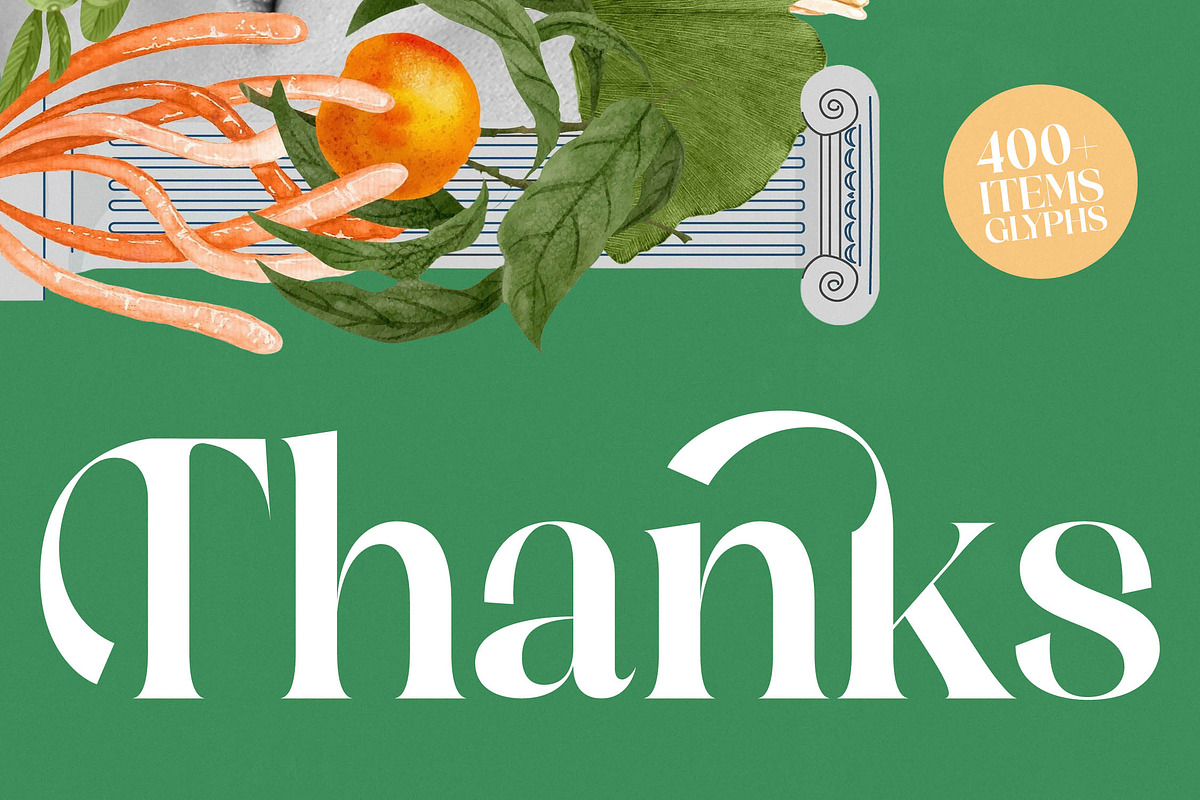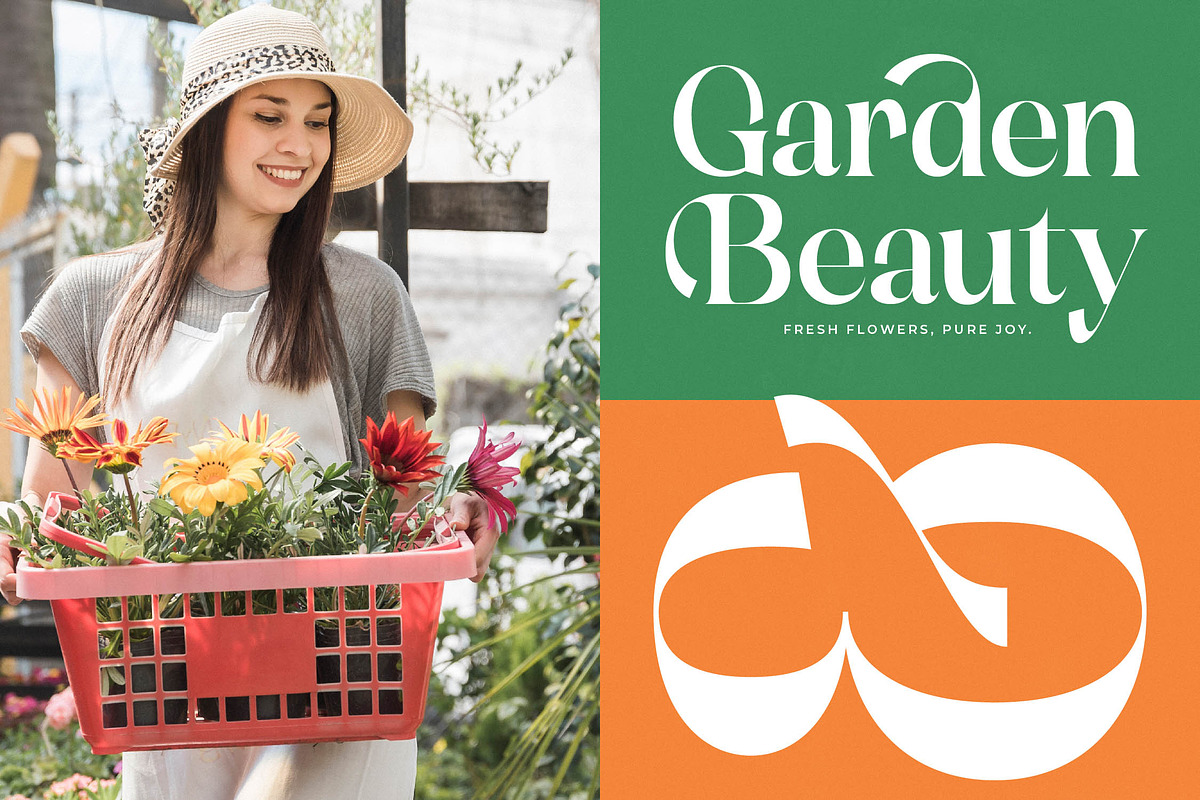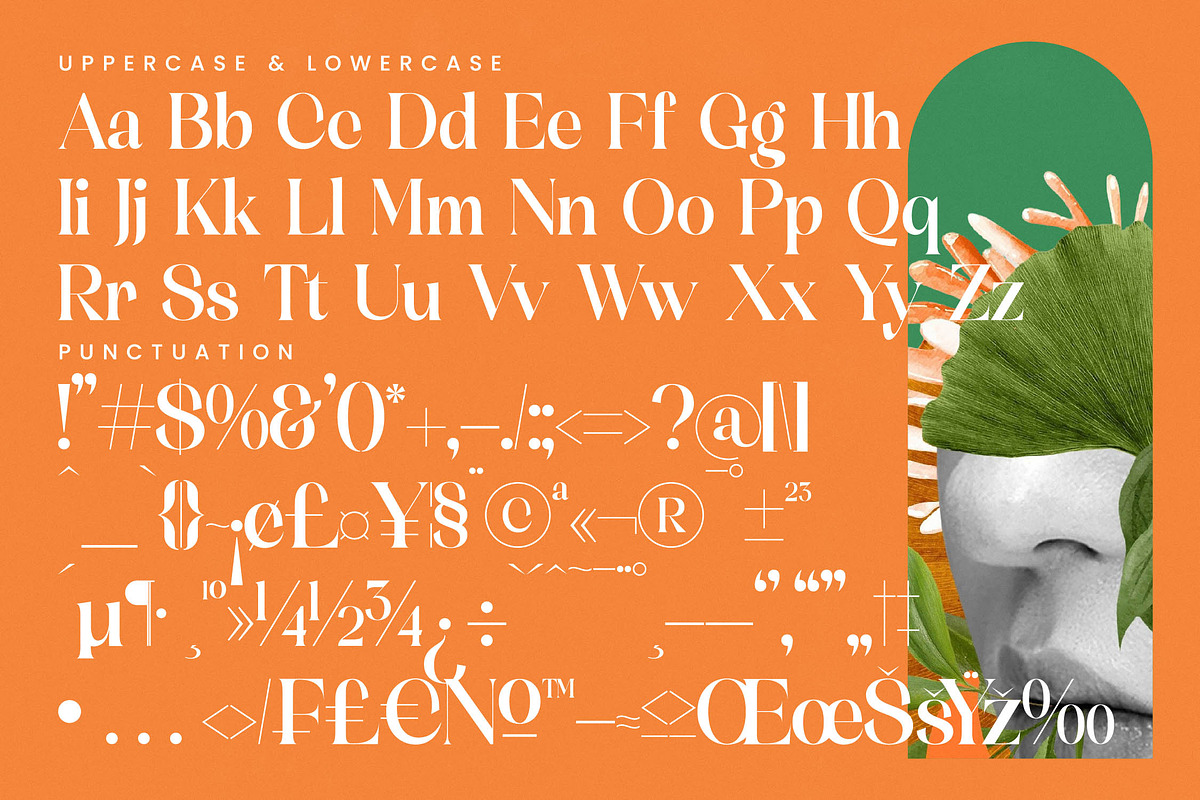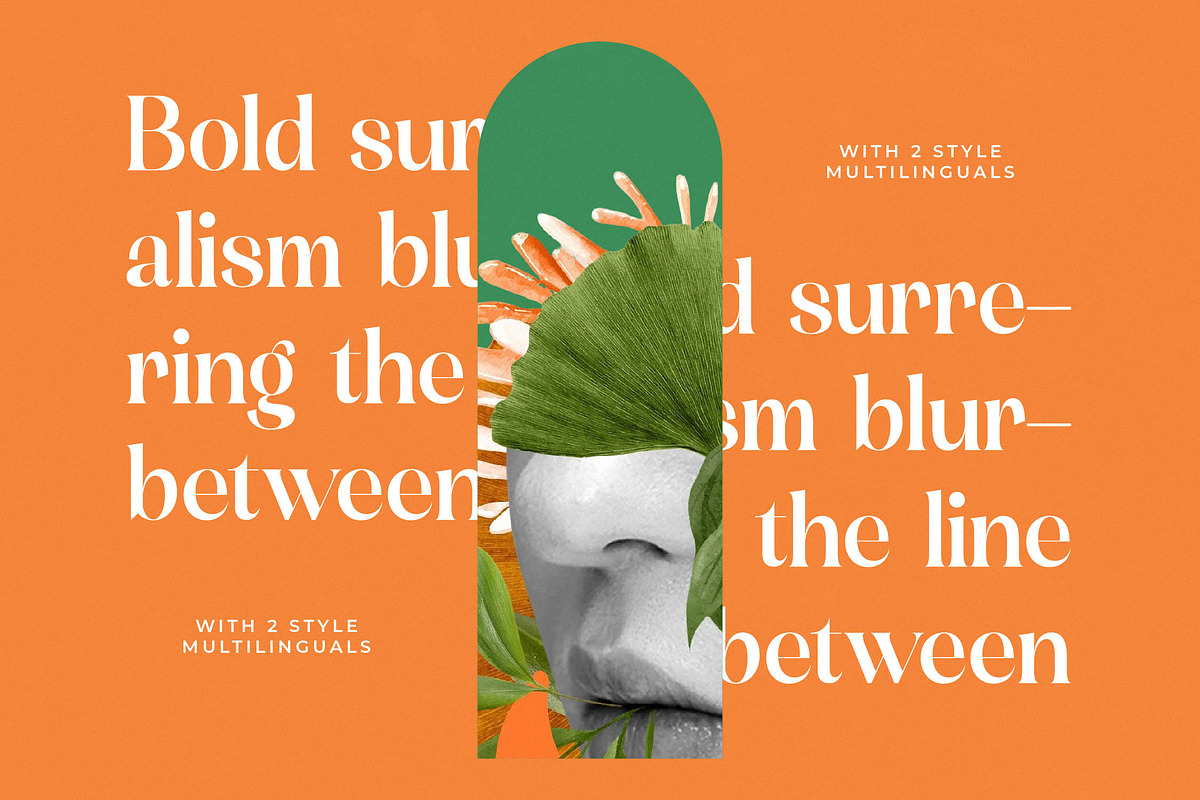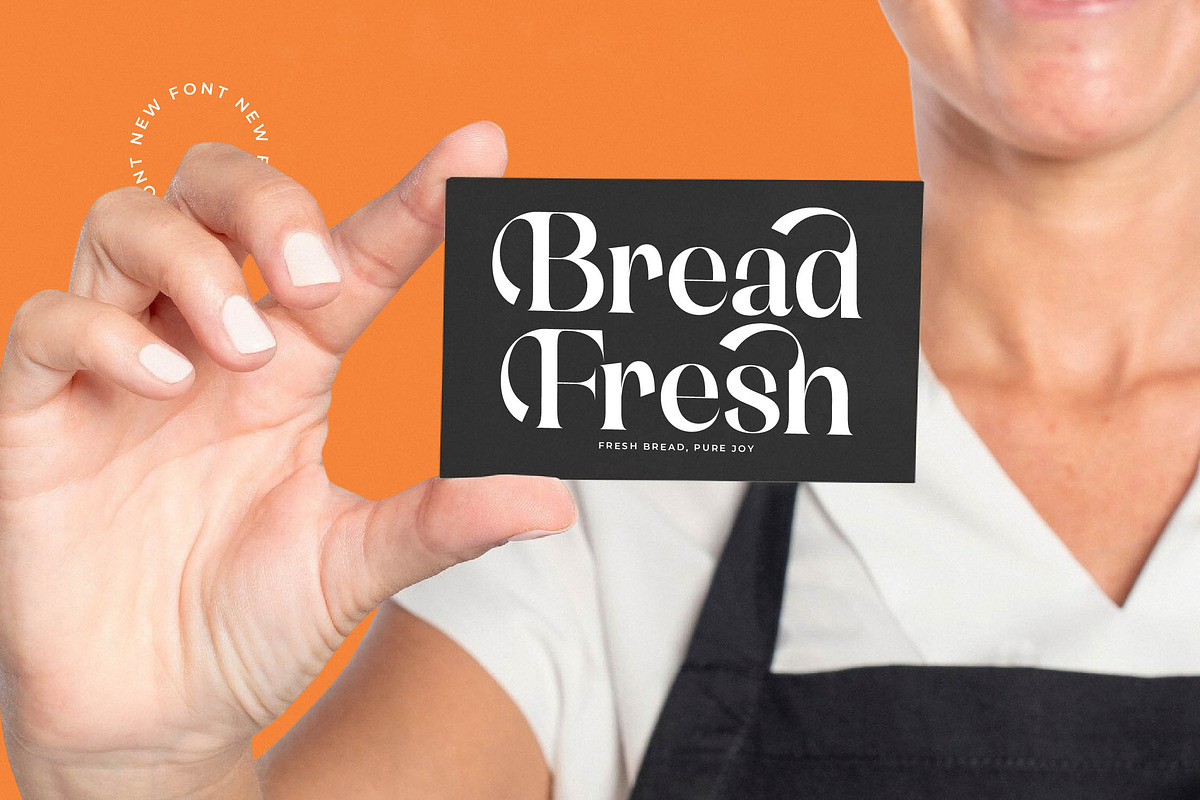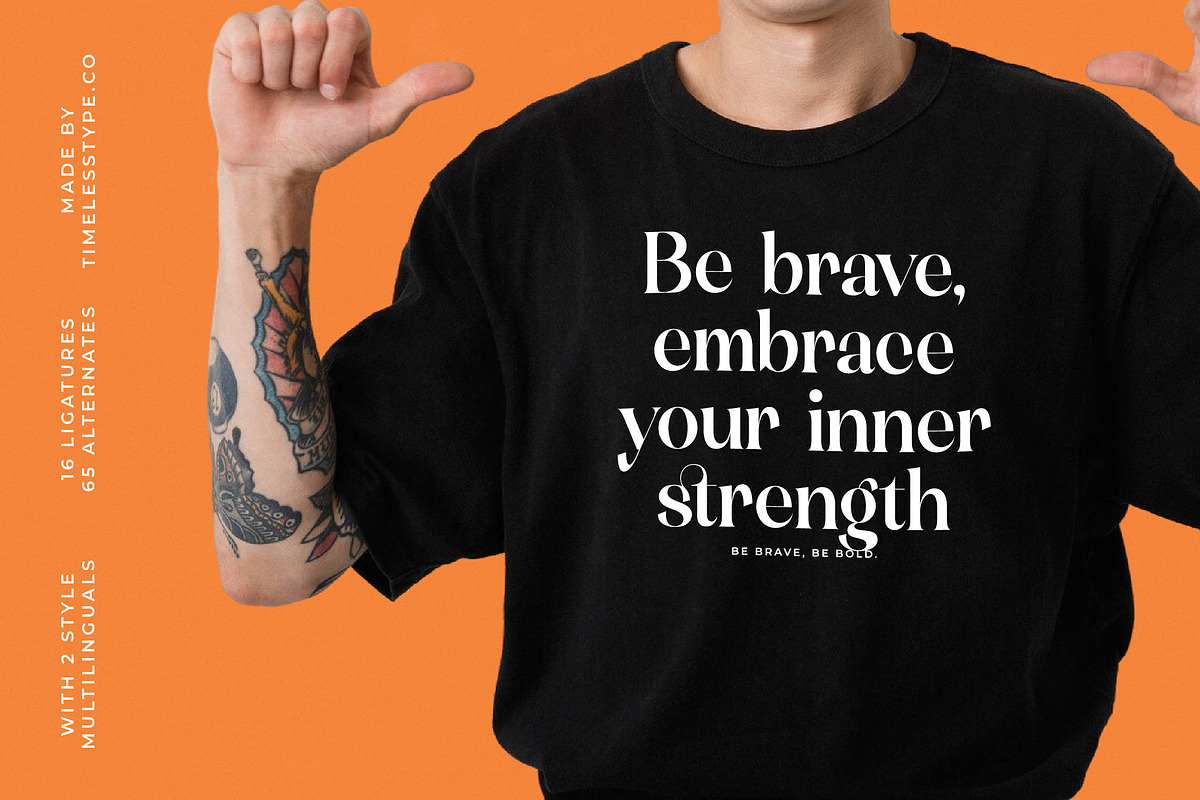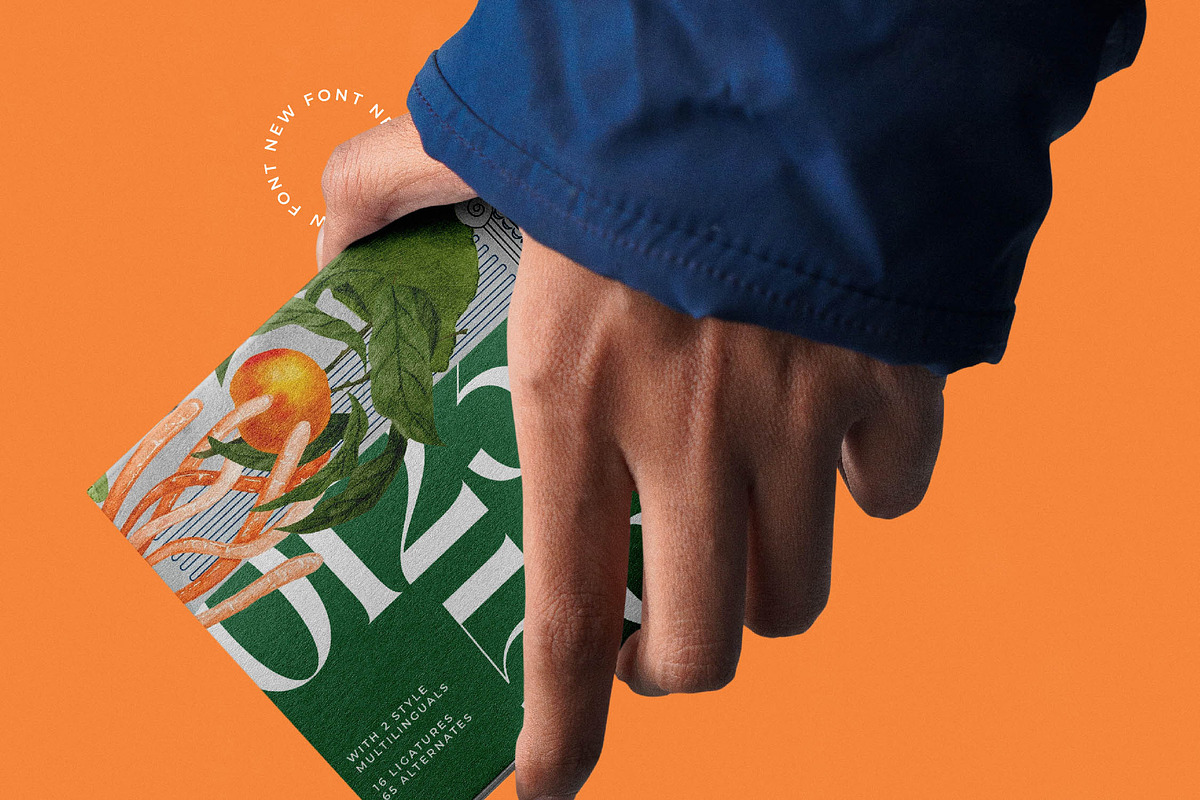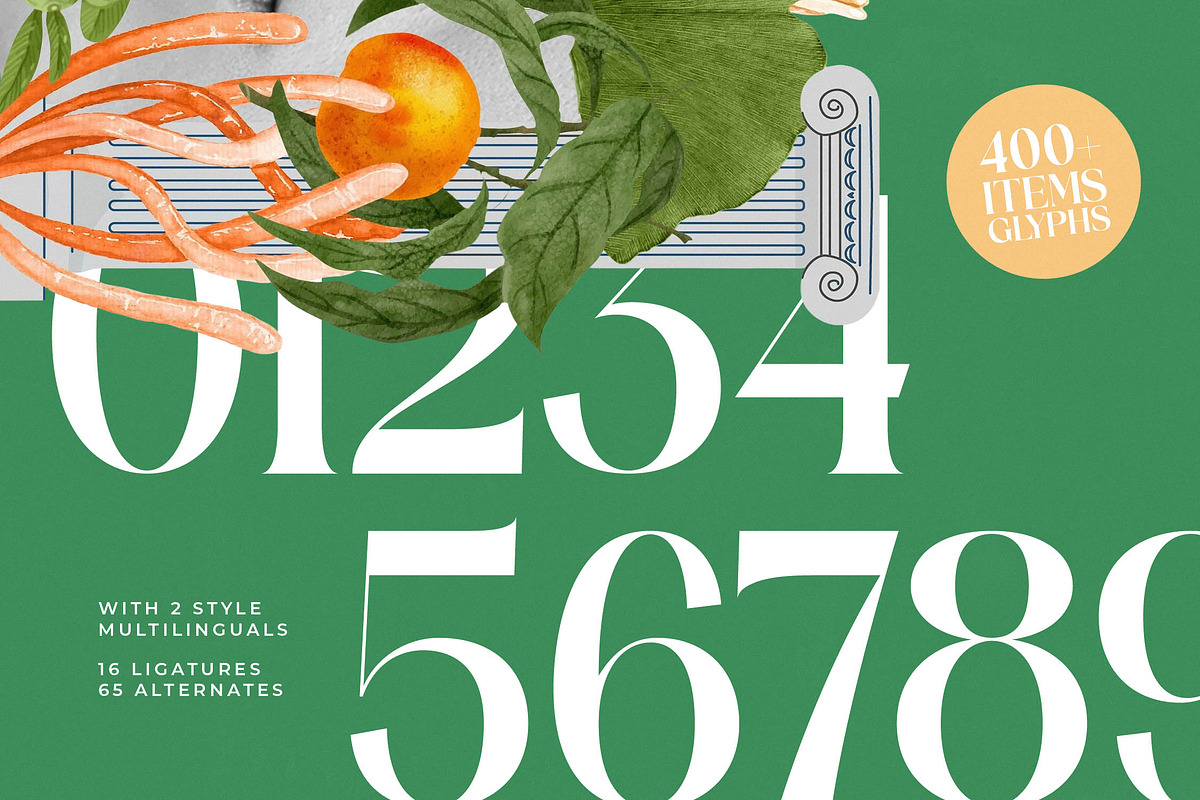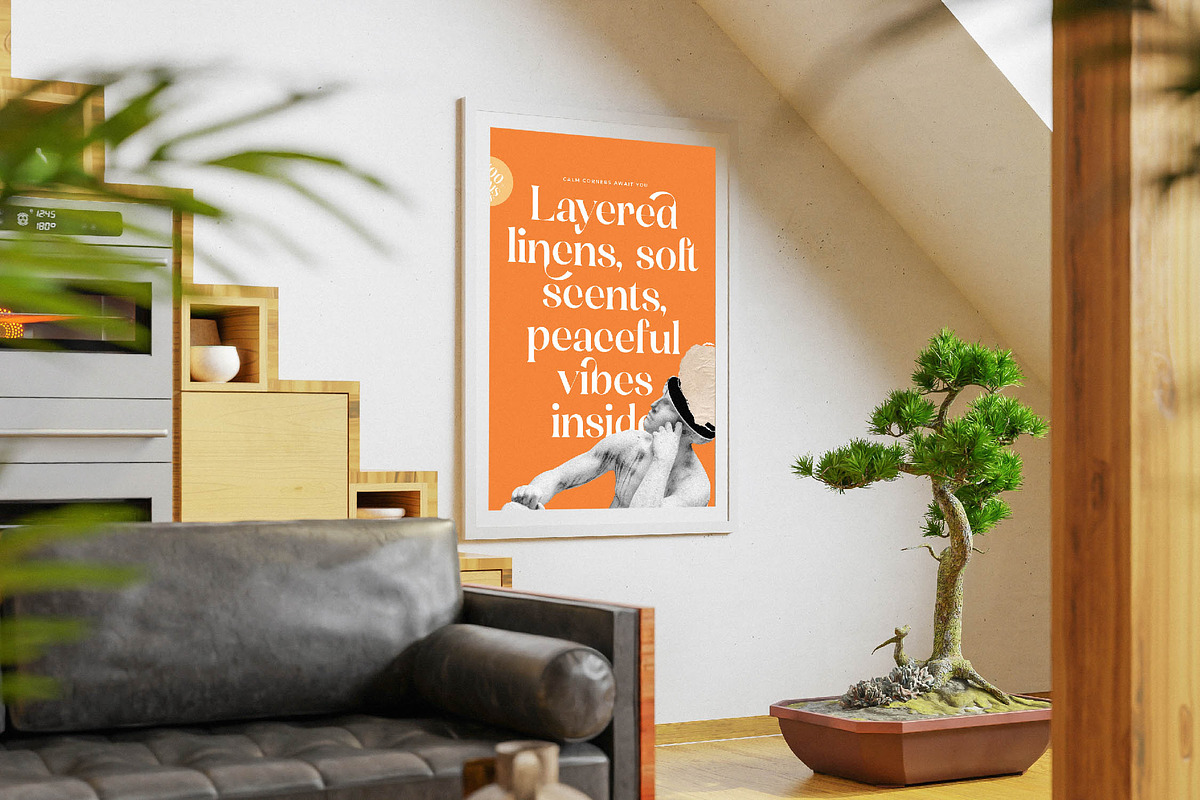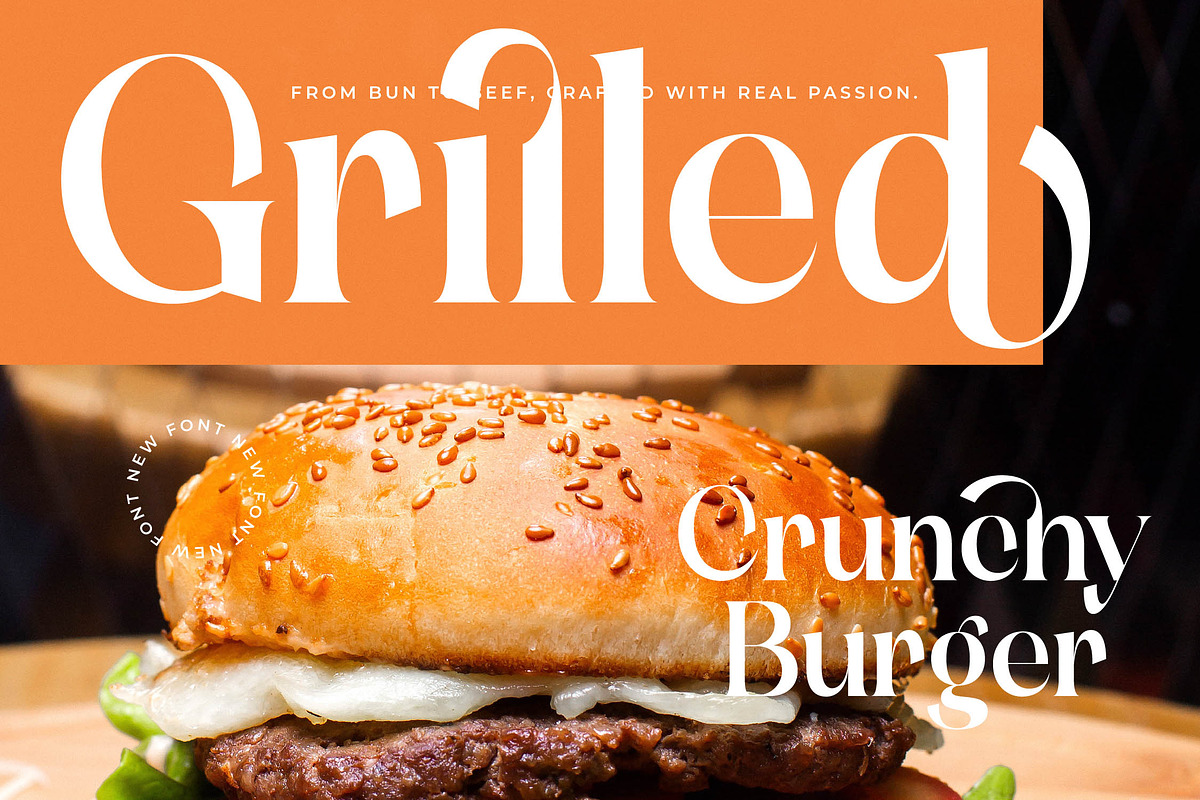
Mosbic Modern Luxury Serif
Mosbic is a breath of fresh air for designers seeking a balance between timeless elegance and contemporary flair. This font captures the essence of sophisticated design, turning every word into a visual masterpiece that demands attention.
Inspired by the architectural grace of classical columns and the organic flow of nature, this typeface merges rigid structures with soft, sweeping curves. It evokes the atmosphere of a high-end botanical garden or an exclusive art gallery where every detail is meticulously curated.
This modern serif display is engineered for luxury typography and maximum branding impact, making it the perfect high-contrast serif for high-end projects. As a versatile editorial font, it commands the page with a sense of authority and refined grace that is impossible to ignore.
Tapping into the current modern serif trend, this typeface is a prime example of character-driven typography that defines the current aesthetic landscape. It satisfies the growing demand for editorial display fonts that offer more than just legibility, providing a distinct soul to any layout.
From sophisticated logo design and comprehensive branding systems to high-fashion editorial spreads, this font excels in diverse creative environments. It is equally at home on luxury packaging, bespoke wedding invitations, or the cover of a premium fashion magazine.
The package is brimming with creative potential, featuring over 400 glyphs including unique ligatures, creative alternates, and elegant swashes. With full multilingual support and a wide range of international characters, it ensures your message resonates across borders and languages.
- Ligature 16 Alternate 65